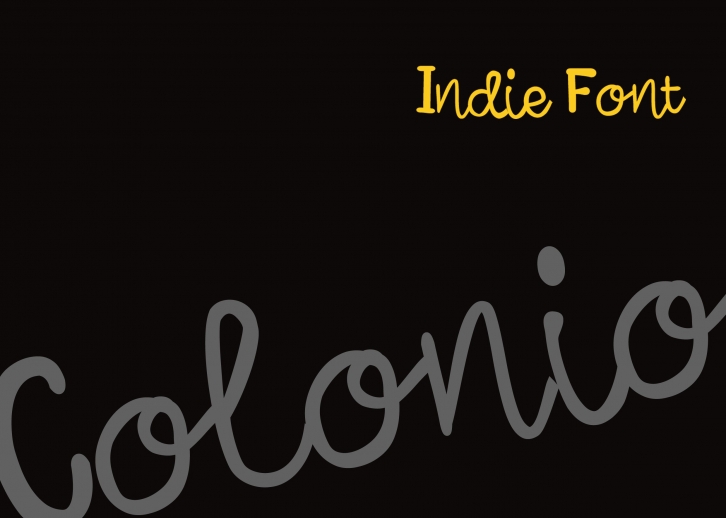
Colonio is a beautiful font that was designed by Marsose. It's a great choice for designers and creatives who need such a font. It was released on June 26, 2016 and the file size is 3.89 MB. Colonio may give a more youthful, expressive and casual look to your project. It is a very beautiful, refined, elegant, and high-quality font.